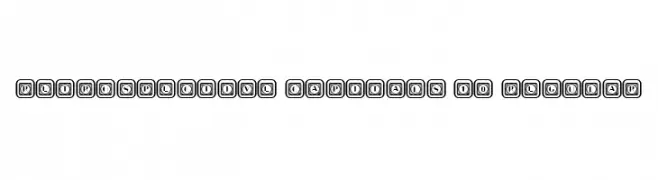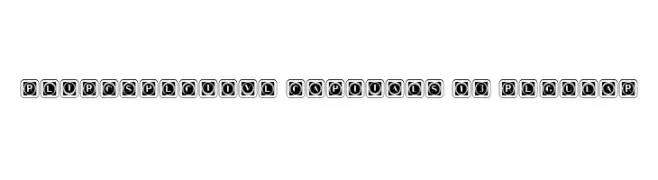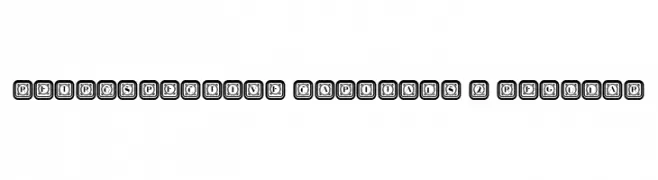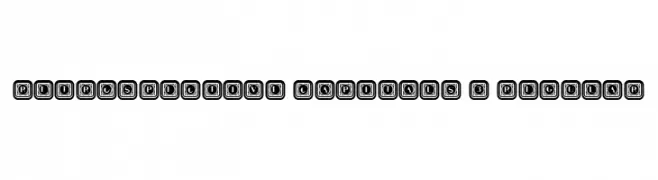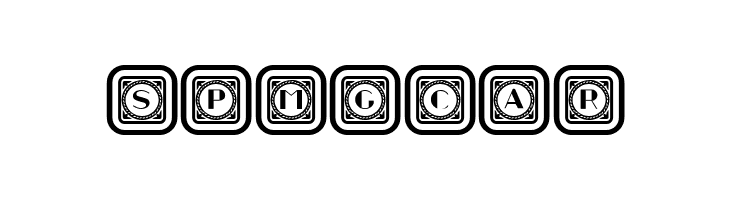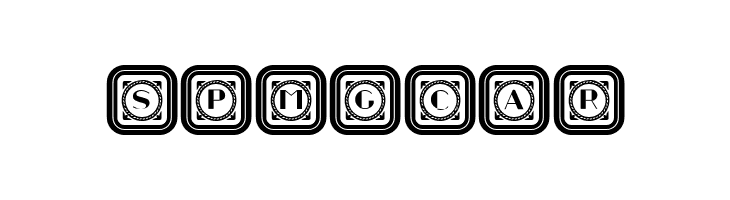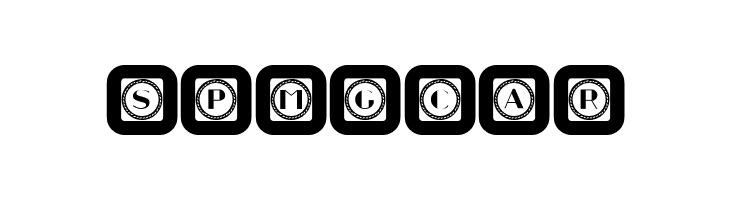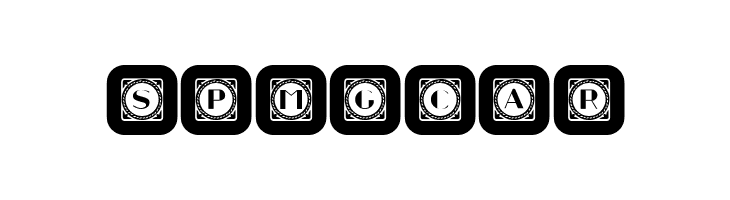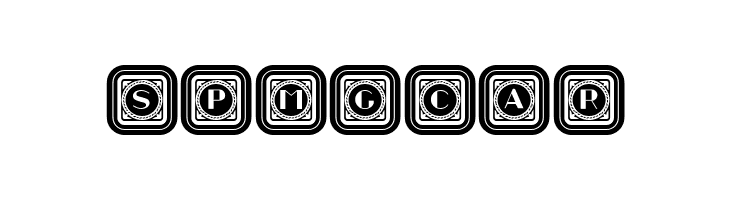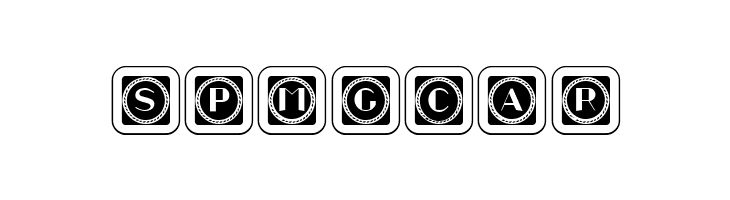
• Retrospective Capitals 10 Regular
A bold, decorative serif font with characters enclosed in square frames, offering a vintage feel.
• Retrospective Capitals 11 Regular
A decorative, vintage-style font with bold, framed uppercase letters.
• Retrospective Capitals 12 Regular
A retro, typewriter-inspired font with bold, enclosed characters.
• Retrospective Capitals 13 Regular
A bold, decorative serif font with a vintage typewriter key style.
• Retrospective Capitals 2 Regular
A bold, decorative font with characters enclosed in square frames, offering a retro aesthetic.
• Retrospective Capitals 3 Regular
A bold, decorative font with a vintage typewriter key style.
• Retrospective Capitals 4 Regular
A bold, decorative font with characters encased in rounded squares, offering a retro-modern aesthetic.
• Retrospective Capitals 5 Regular
A bold, retro-inspired font with characters enclosed in square borders, reminiscent of typewriter keys.
• Retrospective Capitals 6 Regular
A bold, decorative font with characters enclosed in rounded square borders, offering a retro, vintage feel.
• Retrospective Capitals 7 Regular
A bold, decorative font with characters enclosed in retro-style squares.